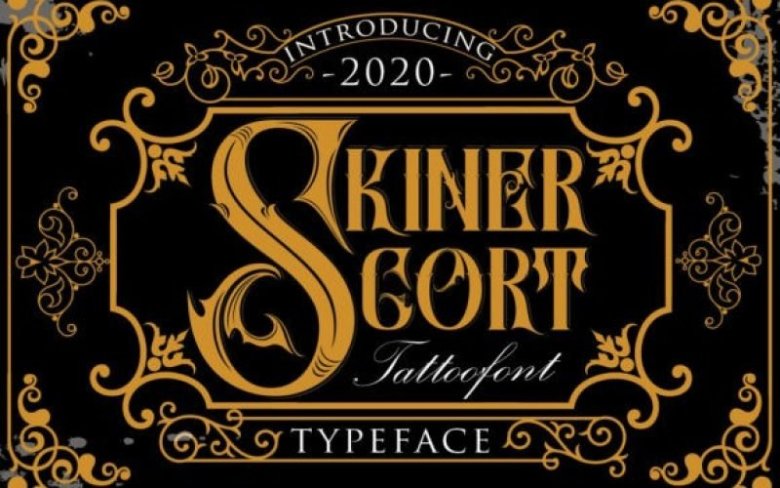
Skiner Scort Blackletter Font
SkinerScort is a magical blackletter font carefully created with a touch of elegance. It will elevate a wide range of design projects to the highest level, be it branding, headings, wedding designs, invitations, signatures, logos, labels, and much more!